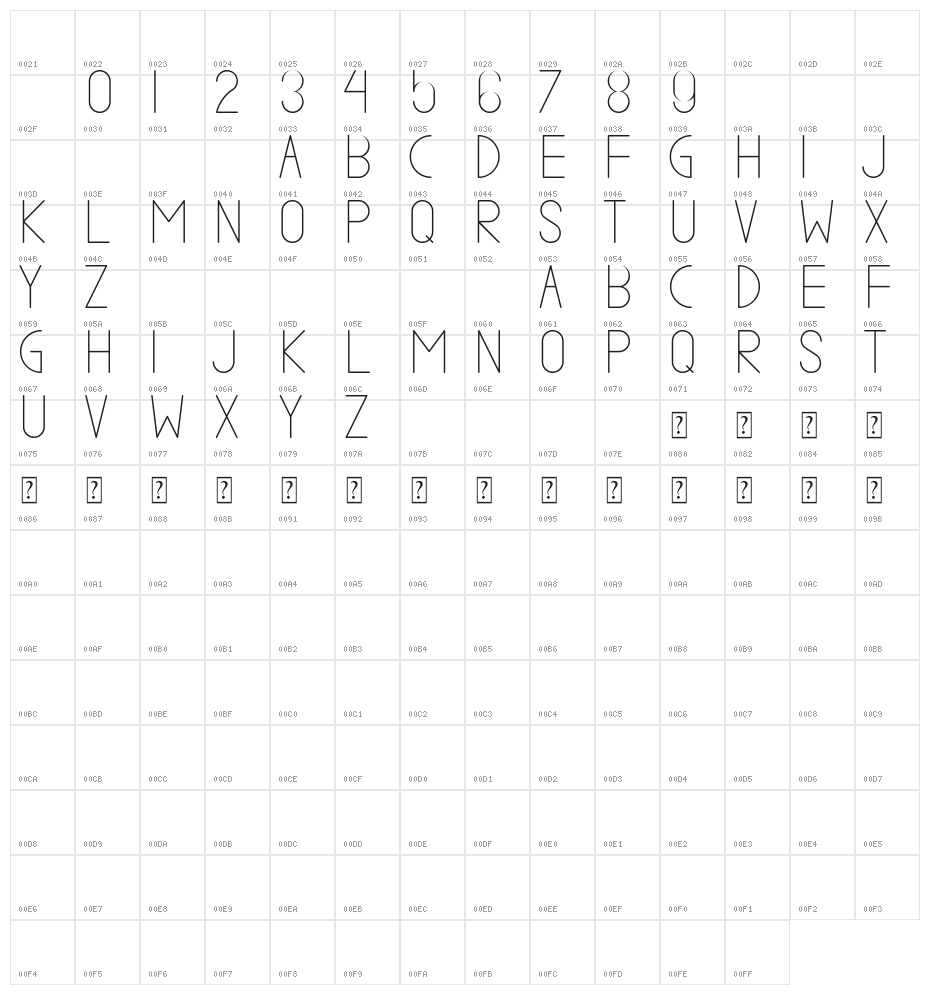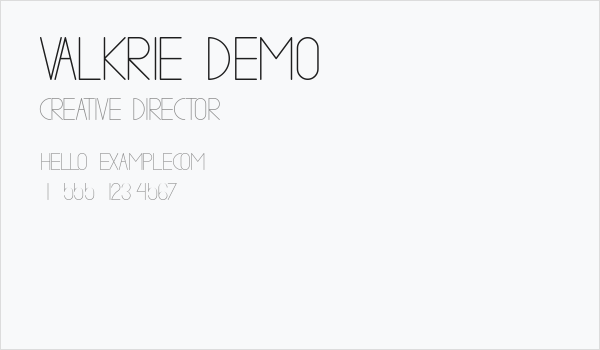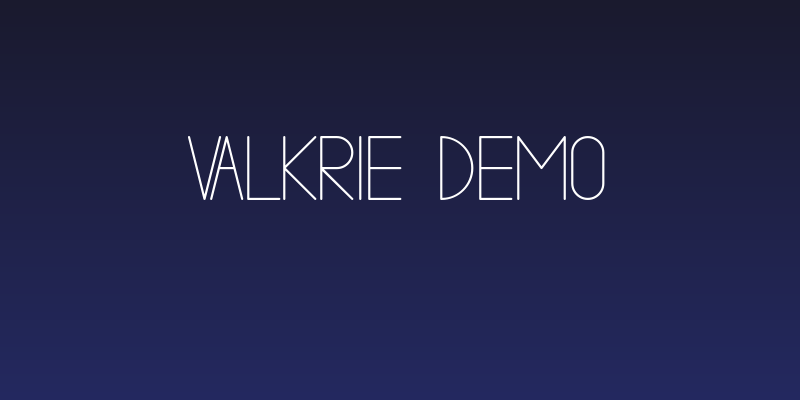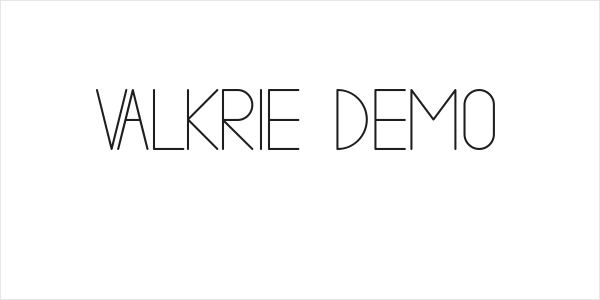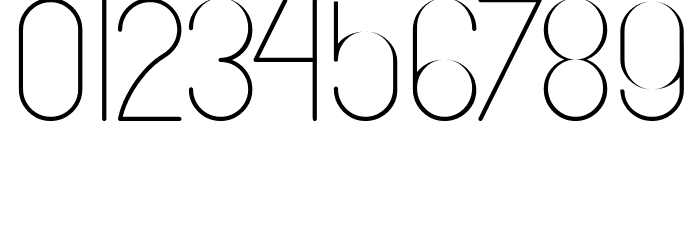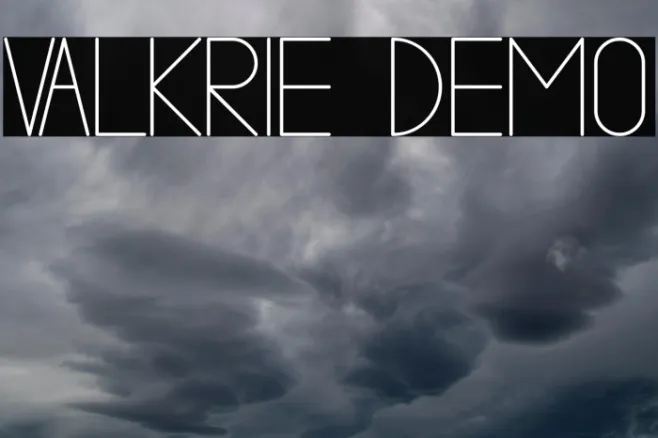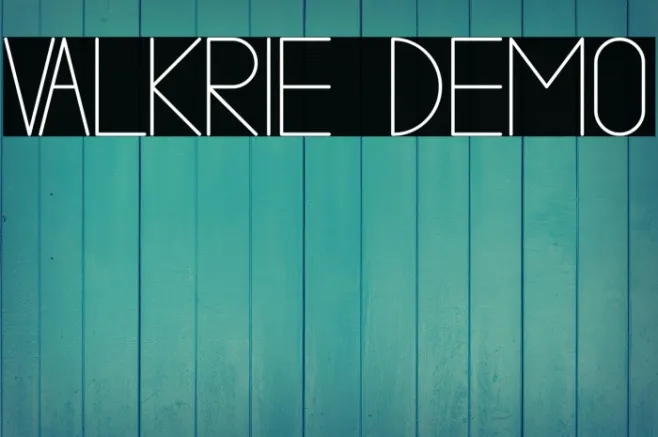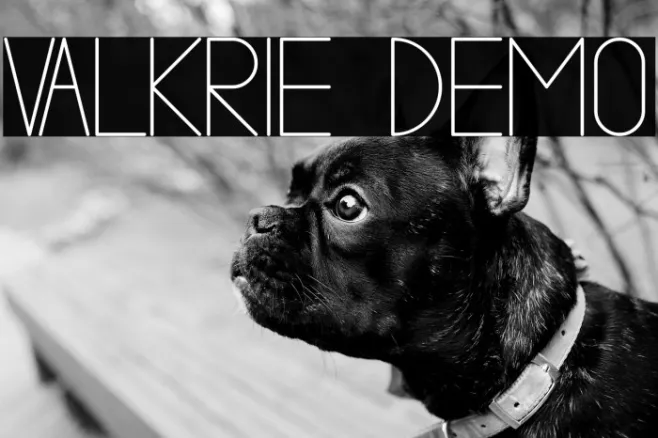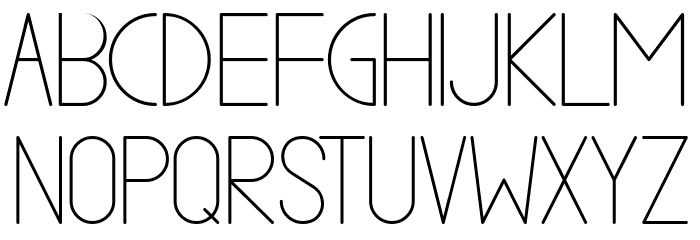
VALKRIE demo Font
VALKRIE demo Description
This font features a sleek, modern design with clean, geometric lines. The characters are constructed with a consistent stroke width, giving it a uniform appearance. The uppercase letters are tall and narrow, while the lowercase letters maintain a similar style, enhancing readability. The numerals are distinct and align well with the overall aesthetic. The font's minimalistic approach is complemented by its slightly condensed form, making it suitable for a variety of design applications. Its contemporary style is ideal for projects that require a modern and sophisticated look.
| Use Case | Headlines, Logos, Digital Interfaces |
| Proposed Projects | Ideal for branding, editorial design, and digital interfaces where a modern aesthetic is desired. |